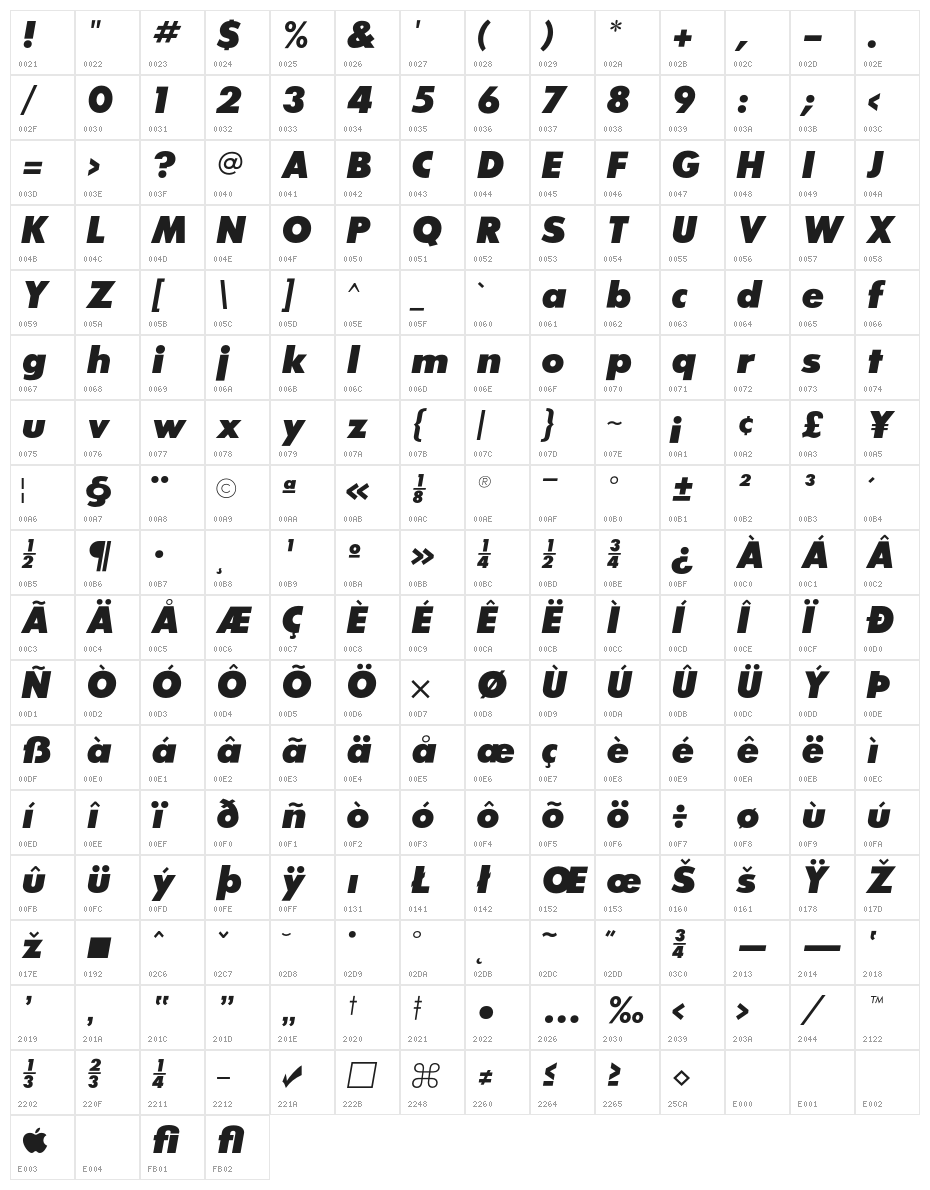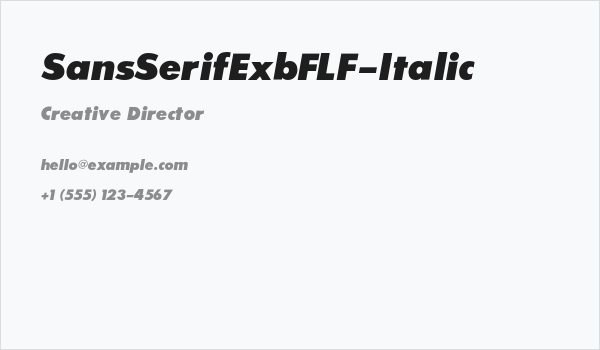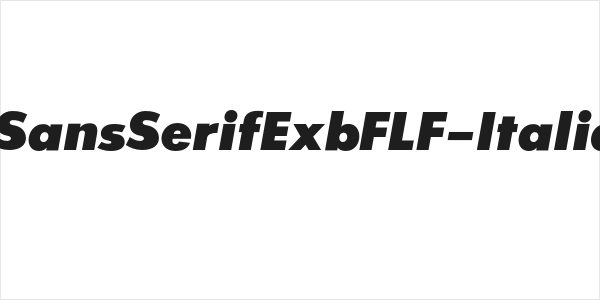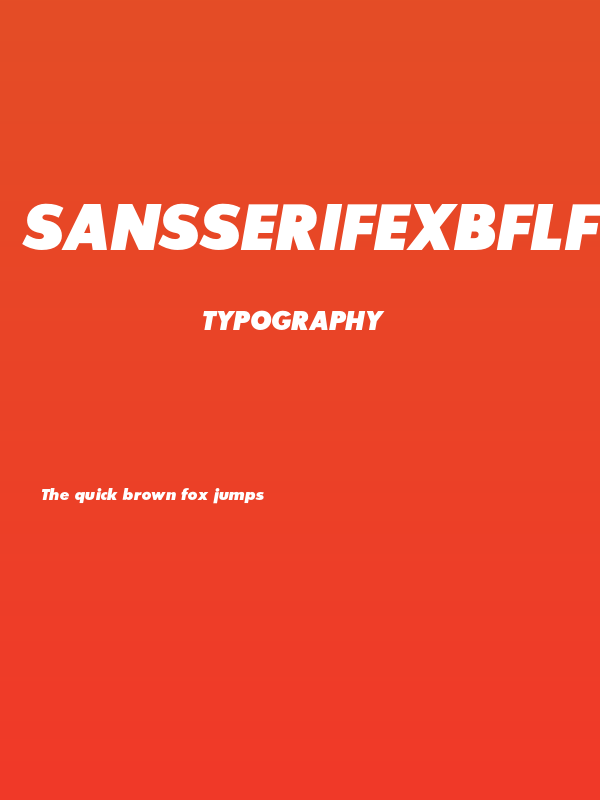
SansSerifExbFLF-Italic Font
SansSerifExbFLF-Italic Description
This font features a bold and italicized style with a strong presence. The characters are sans-serif, providing a clean and modern look. The strokes are thick, contributing to a high contrast appearance that makes each letter stand out distinctly. The overall design is sleek and contemporary, suitable for making a statement. The character spacing is normal, ensuring readability while maintaining a compact and impactful visual. The font includes a full set of uppercase and lowercase letters, numbers, and a variety of special characters, making it versatile for different design needs.
| Proposed Projects | Ideal for branding, advertising, headlines, and posters where a strong visual impact is needed. |